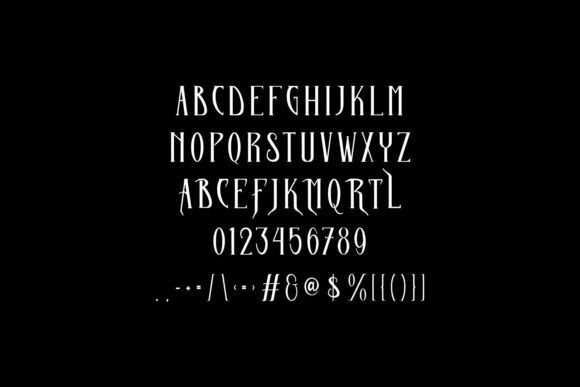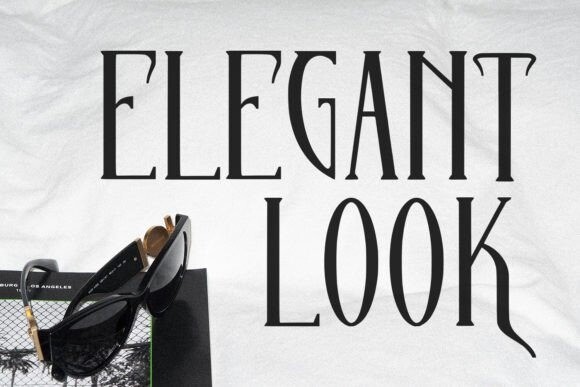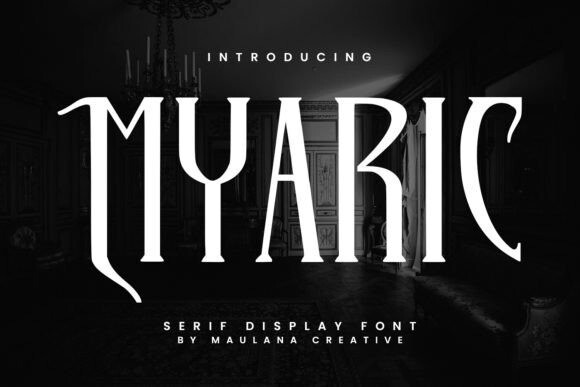
Myaric Font
Designer: Maulana Creative
Myaric Font is a fancy font with elegant lines. It’s great for making titles or signs stand out. Perfect for adding a touch of class to your designs!